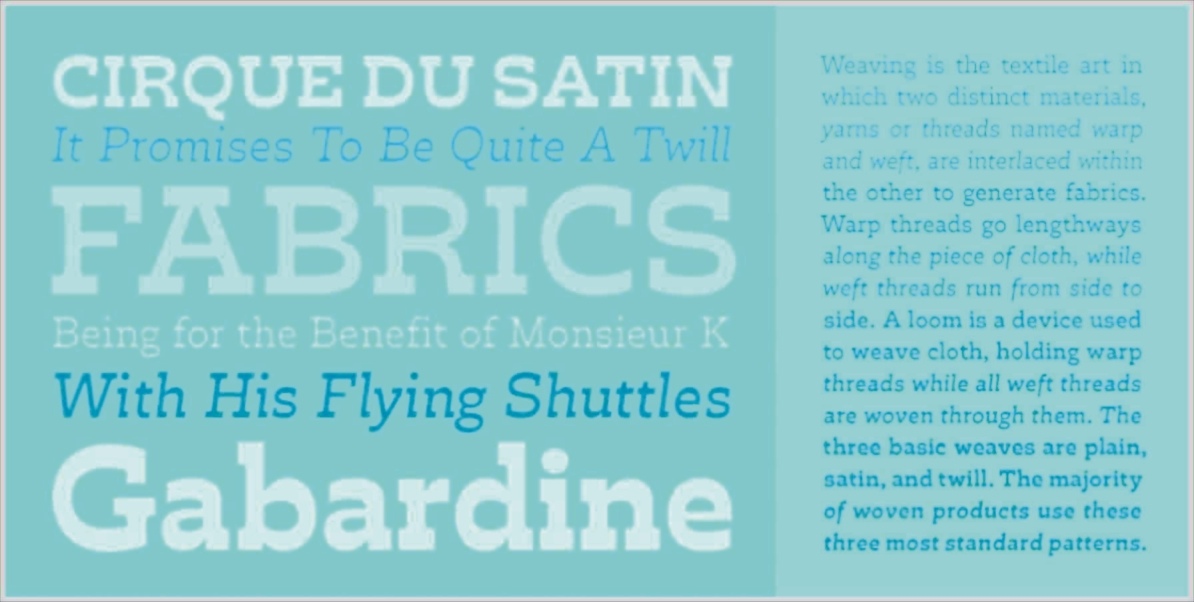
Trilby Font
Trilby Font is perfect for vintage haberdashery branding, classic men's fashion stores, traditional barbershop signage, heritage clothing boutiques, vintage detective-themed entertainment, old-world gentleman's club materials, retro speakeasy graphics, period film title designs, historical museum exhibitions, and distinguished cigar lounge branding. This sophisticated typeface excels in applications where timeless masculine elegance, vintage sophistication, and classic gentleman's style are fundamental brand elements.
What makes Trilby Font exciting is its masterful evocation of early 20th-century masculine sophistication through carefully crafted letterforms that capture the essence of dapper gentlemen's culture from the golden age of menswear. The font features refined serif details with classical proportions and subtle vintage character that immediately transports viewers to an era when style, craftsmanship, and gentlemanly conduct were paramount. Its distinguished presence makes it perfect for brands celebrating traditional masculine aesthetics and timeless sartorial excellence.
The Trilby Font family typically includes Regular and Bold weights, often accompanied by italic variations that enhance its formal versatility and period authenticity. Many versions feature alternate characters with enhanced vintage styling, decorative ligatures that reflect traditional typography craftsmanship, and ornamental elements including vintage borders, flourishes, and period-appropriate symbols. Some collections include small caps and old-style numerals that complete the authentic early 1900s typographic aesthetic.
Whether you're developing brand identities for traditional menswear retailers, creating materials for vintage-themed establishments, or designing content that celebrates classic masculine style and craftsmanship, Trilby Font Free Download offers the authentic gentleman's character that resonates with audiences who appreciate timeless quality and traditional elegance. Its refined presence makes it ideal for businesses that cater to discerning gentlemen who value heritage, craftsmanship, and classic style. The font's ability to convey both sophistication and approachable masculinity makes it particularly valuable for luxury menswear brands, traditional service establishments, and heritage companies seeking to honor masculine traditions while attracting modern gentlemen who appreciate authentic quality and timeless style values.